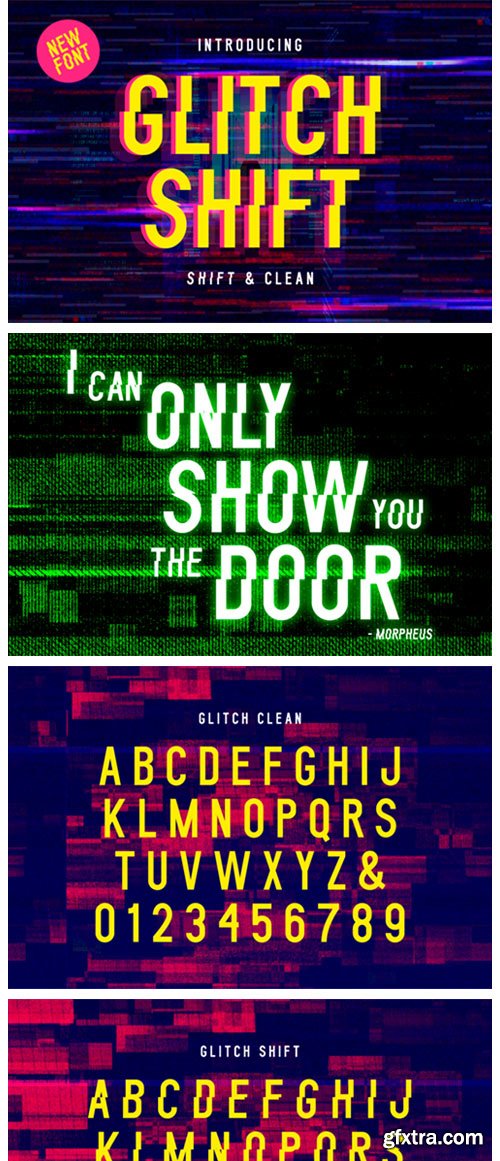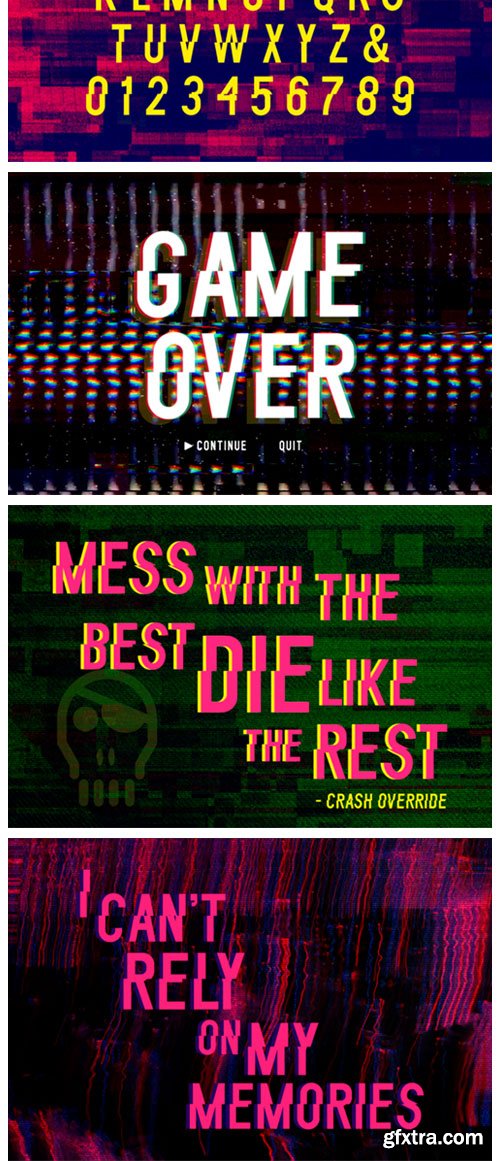
Glitch Shift Font
Glitch Shift is a great all-caps display font. It features a unique style of digital glitch effect and a clean version. Use this authentic font for games, movies, flyers, posters and much more!